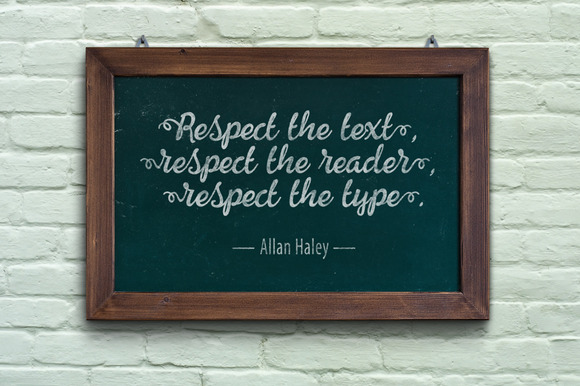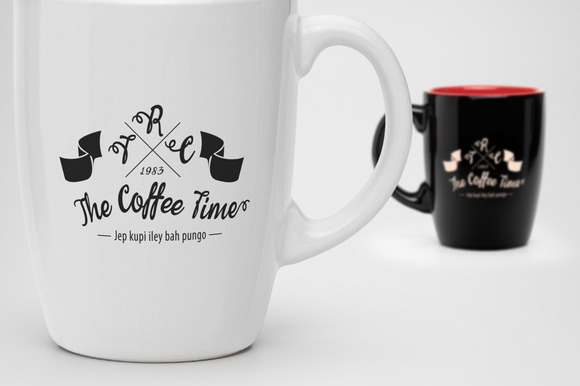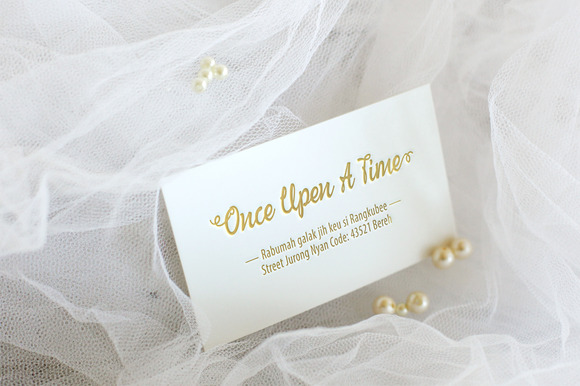
Conflow Typeface
Conflow is a new hand lettering font. Available for both personal and commercial use. Including over 350 hand lettering characters for a range of languages.
Features:
• Basic Latin A-Z and a-z
• Numbers